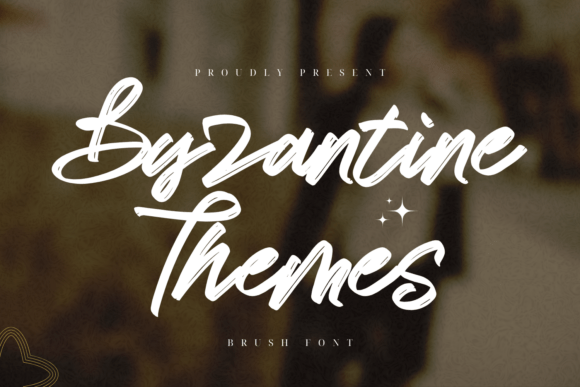
Introducing Byzantine Themes Brush Font: Elevate Your Designs with a Touch of Elegance
In the realm of digital design, fonts play a pivotal role in conveying messages, evoking emotions, and creating lasting impressions. Among the myriad of fonts available, the Byzantine Themes Brush Font stands out as a beacon of creativity and sophistication. This beautiful brush signature font is not just a typeface; it’s an artistic statement that brings a contemporary approach to design, making it an indispensable tool for designers and creatives alike.
The Essence of Byzantine Themes Brush Font
Byzantine Themes Brush Font is characterized by its naturally handmade look, complete with underscores that add a touch of authenticity to any design. This font is meticulously crafted to mimic the elegance and fluidity of brush writing, offering a unique blend of modernity and tradition. Its design is not just about aesthetics; it’s about creating a connection with the viewer, making the message more personal and engaging.
Key Features of Byzantine Themes Brush Font
- Handmade and Underscores: The font’s handmade look, coupled with natural underscores, gives it a distinctive, personal touch that sets it apart from more conventional typefaces.
- Alternatives and Ligatures: Byzantine Themes Brush Font comes equipped with alternatives and ligatures, allowing for a high degree of customization. These features enable designers to add variety and creativity to their work, making each design unique.
- Suitable for Various Design Needs: Whether it’s for title design, clothing, invitations, book titles, stationery, quotes, branding, logos, greeting cards, t-shirts, packaging, posters, or more, this font proves to be incredibly versatile.
Applications of Byzantine Themes Brush Font
The versatility of Byzantine Themes Brush Font makes it suitable for a wide range of applications. Here are a few areas where this font truly shines:
1. Fashion and Apparel
For clothing and fashion brands, the font’s stylish and contemporary look can add a significant edge to branding and marketing materials. T-shirts, hoodies, and other apparel designs come alive with the dynamic and elegant feel of Byzantine Themes Brush Font.
2. Stationery and Invitations
Invitations, greeting cards, and stationery designs benefit greatly from the font’s personal and handmade touch. It adds warmth and elegance, making any invitation or piece of stationery feel more special and personal.
3. Branding and Logos
For businesses looking to create a memorable brand identity, Byzantine Themes Brush Font offers a unique opportunity. Its distinctive look can help brands stand out, conveying a sense of creativity and sophistication.
4. Packaging and Posters
Packaging designs and posters are also excellent applications for this font. It can add a creative touch to product packaging, making it more appealing to potential customers. Similarly, posters designed with Byzantine Themes Brush Font are sure to grab attention and leave a lasting impression.
Why Choose Byzantine Themes Brush Font?
In a world where design trends are constantly evolving, having a font that can keep up with the demands of modern design is crucial. Byzantine Themes Brush Font is more than just a typeface; it’s a design solution that offers:
- Uniqueness: Its handmade and brush-like appearance makes it unique and capable of adding a personal touch to designs.
- Versatility: Suitable for a wide range of design applications, making it a valuable addition to any designer’s toolkit.
- Elegance: The font exudes elegance and sophistication, making it perfect for designs that require a touch of class.
- Customization: With alternatives and ligatures, designers have the flexibility to create truly customized designs.
Byzantine Themes Brush Font is a remarkable addition to the world of digital design. Its unique blend of handmade charm and contemporary design elements makes it an invaluable asset for designers looking to elevate their work. Whether you’re working on a branding project, creating elegant stationery, designing eye-catching posters, or crafting memorable logos, this font is sure to enhance your designs and leave a lasting impression on your audience.
Incorporating Byzantine Themes Brush Font into your design projects is a step towards creating visually stunning and emotionally resonant work. Its beauty, versatility, and elegance make it not just a font, but a tool for bringing your creative visions to life.